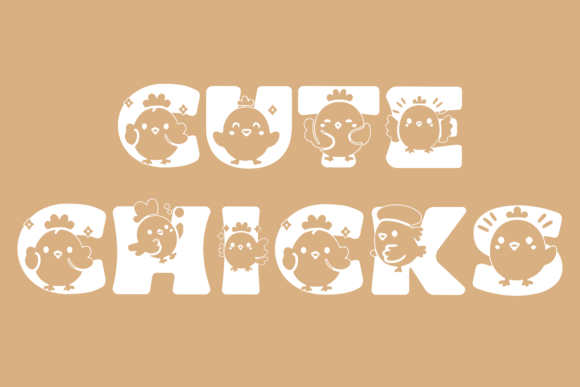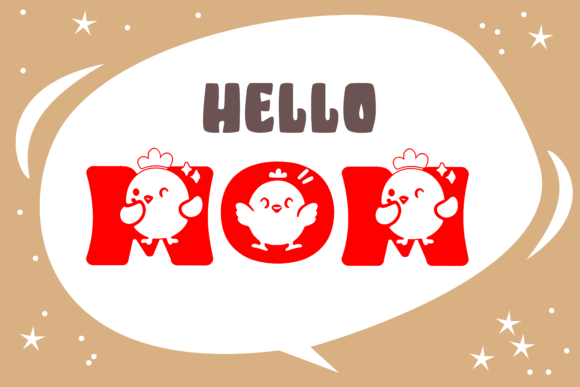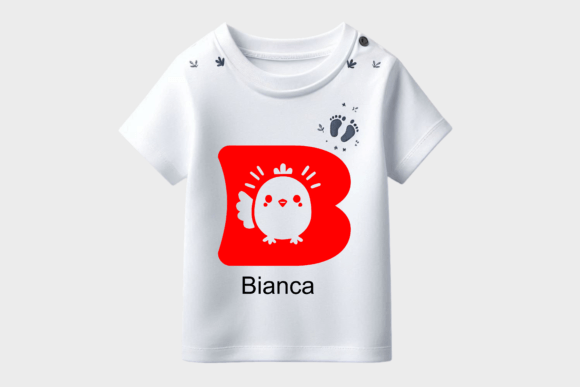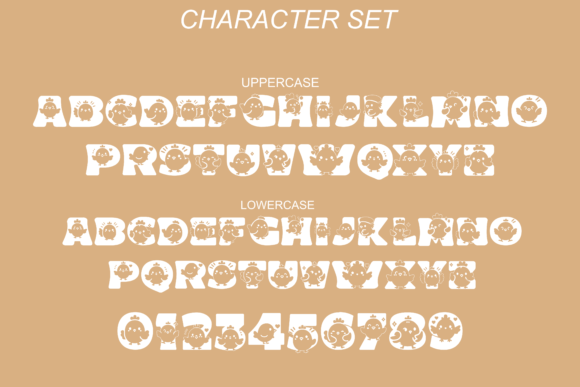
Unlocking the Magic of Chicks Font: Elevate Your Designs with Enchantment and Charm
I’ll never forget the design struggle I faced while working on a project for a client who wanted a font that was both whimsical and sophisticated. I scoured the internet, tried countless typefaces, but nothing seemed to fit the bill. That was until I stumbled upon the Chicks font. It was like a breath of fresh air – a perfect blend of enchantment and charm that instantly elevated my design game. In this article, I’ll share my love for Chicks font, its features, and how you can harness its magic to take your designs to spectacular heights.
An Honest Review of Chicks Font
What I Love About Chicks Font ✨
- Unique and captivating design that adds a touch of whimsy to any project ✅
- Highly versatile and adaptable to various design styles and themes 🌈
- Wide range of OpenType features, glyphs, and stylistic alternates to experiment with 🎨
- Welcoming essence that resonates beautifully through diverse designs 🌎
- May not be suitable for very formal or traditional designs ⚠️
- Some users may find the font a bit too playful or childish 😊
The Backstory of Chicks Font
Chicks font was designed by a team of creatives who wanted to create a typeface that would add a touch of magic to any design project. Inspired by the whimsy of hand-drawn fonts and the sophistication of digital typography, Chicks font was born. The design team poured their hearts into crafting a font that would be both enchanting and versatile, with a wide range of OpenType features, glyphs, and stylistic alternates to experiment with.
| Font Name | Chicks Font |
| Author | Infontree |
| What makes Chicks font unique? | Chicks font is unique due to its captivating blend of enchantment and charm, making it perfect for designs that require a touch of whimsy and sophistication. |
| Is Chicks font suitable for body text? | While Chicks font is beautiful and elegant, it may not be the best choice for body text due to its playful and whimsical nature. It’s better suited for headings, titles, or short paragraphs. |
In conclusion, Chicks font is a stunning typeface that can elevate your designs to spectacular heights. With its unique blend of enchantment and charm, it’s perfect for designers, crafters, and creative hobbyists who want to add a touch of magic to their projects. By harnessing the power of Chicks font, you’ll be able to create designs that are both captivating and memorable.